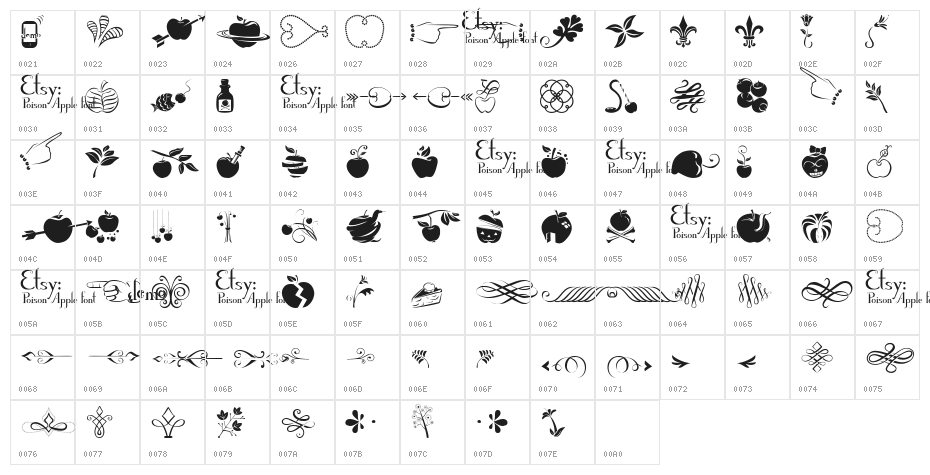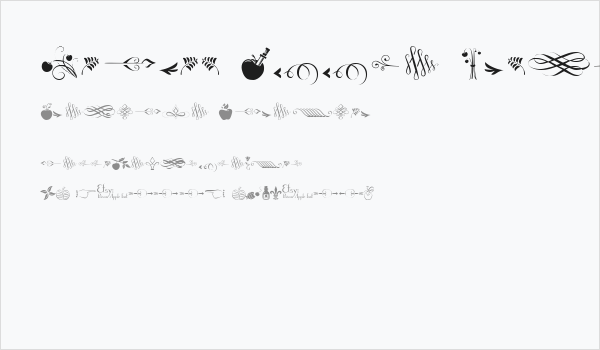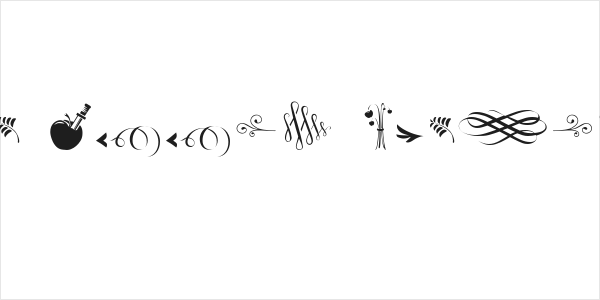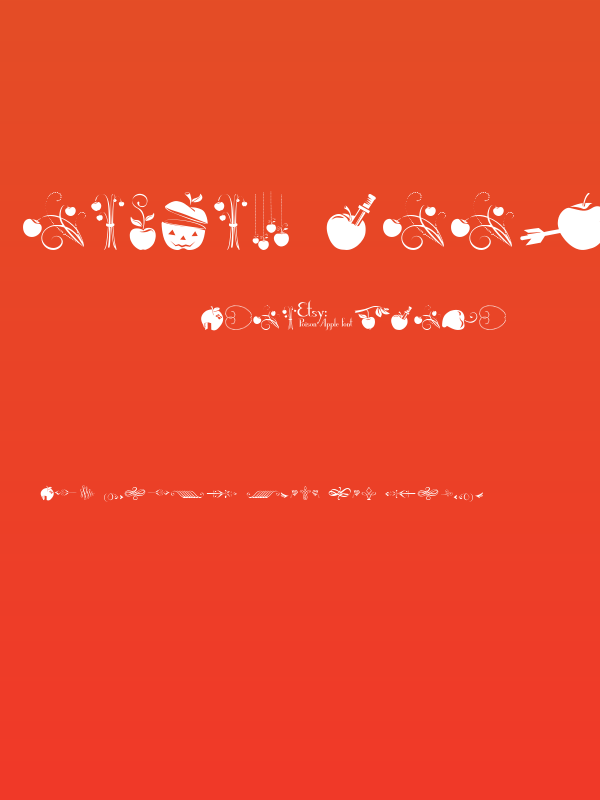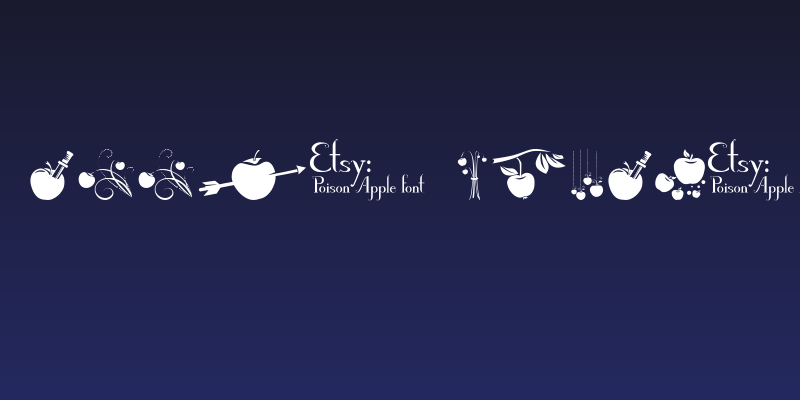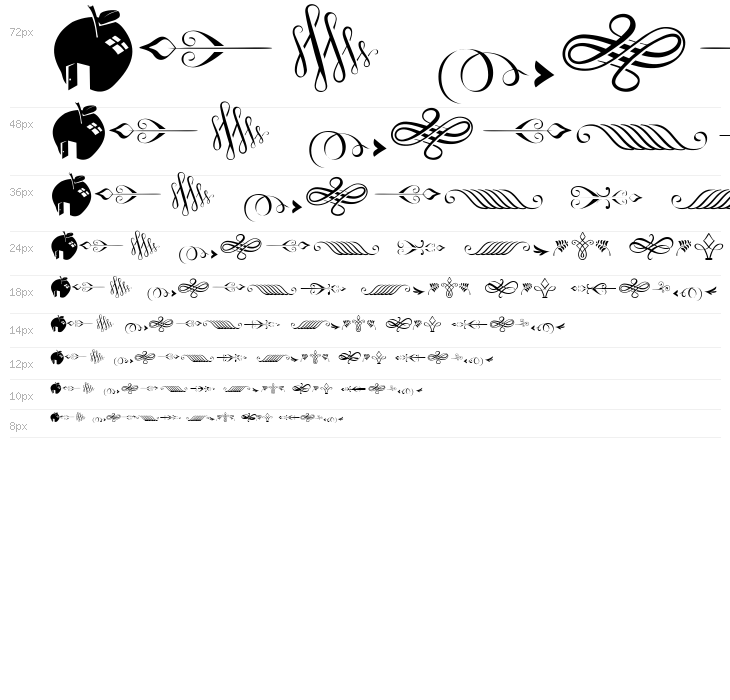
Poison Apple Ornaments 1 Font
Poison Apple Ornaments 1 Description
This decorative font is inspired by whimsical and fairy-tale themes, featuring a variety of ornamental elements such as apples, arrows, and potion bottles. The design incorporates playful and intricate details, making it ideal for creative projects that require a touch of fantasy. The characters are adorned with elaborate swirls and embellishments, adding a unique and artistic flair. This font is perfect for creating enchanting designs, invitations, and themed graphics that evoke a sense of magic and wonder.
| Use Case | Logos, Headlines, Decorative elements |
| Proposed Projects | Ideal for invitations, fantasy-themed graphics, children's book illustrations, and decorative posters. |